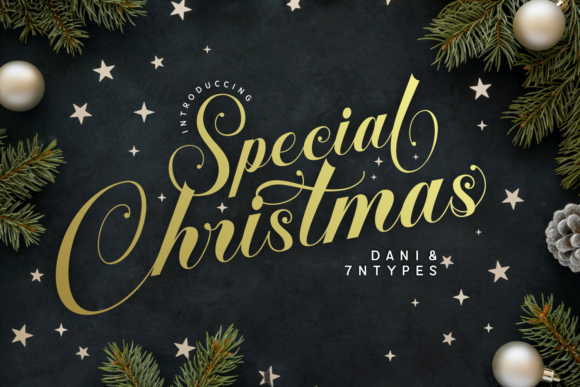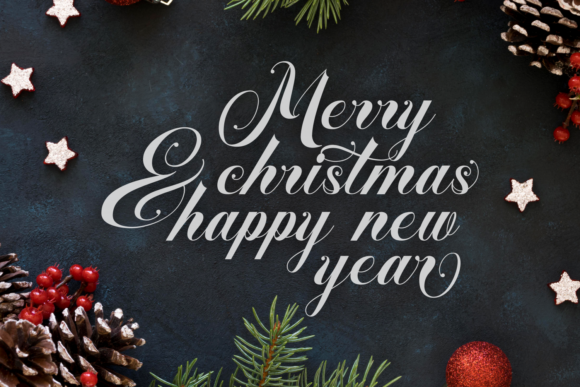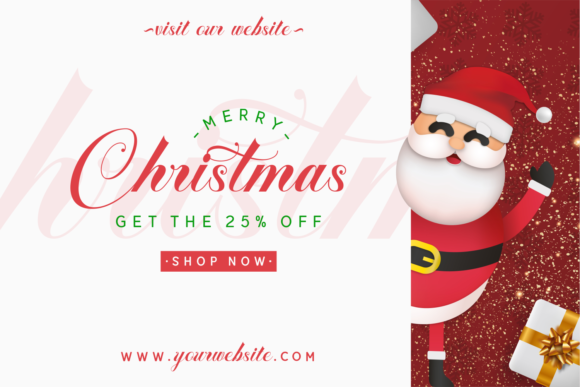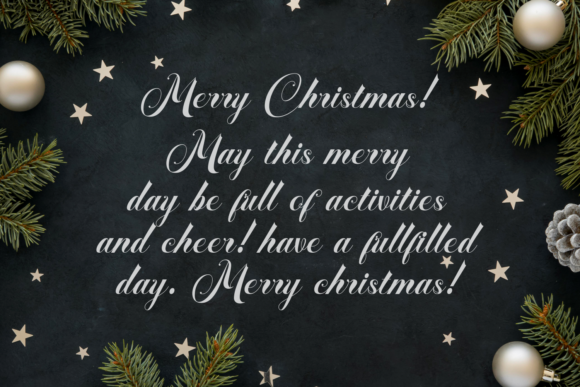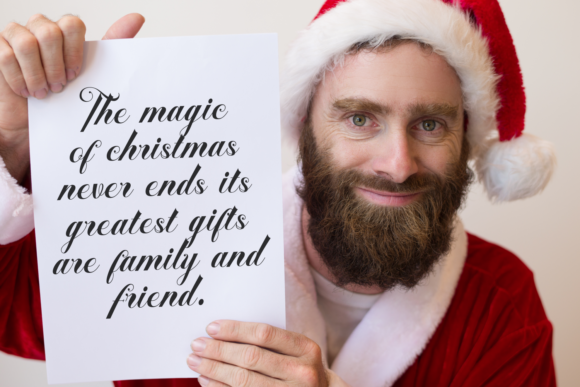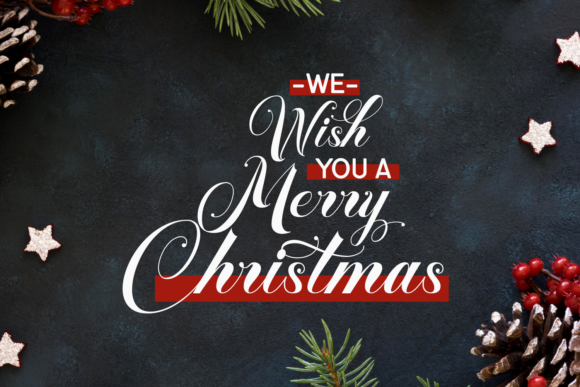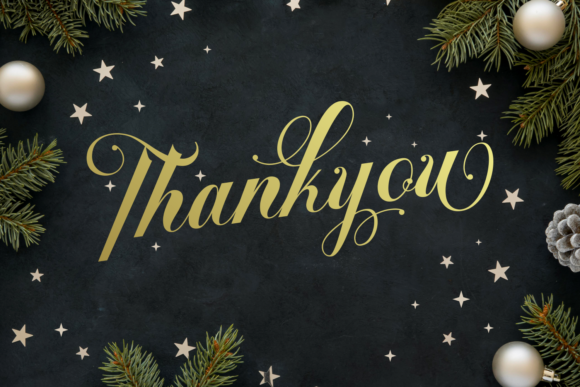
Special Christmas Font
About Special Christmas Font
Special Christmas is a classic yet fresh, rich, and elegant handwritten font. It is ideal for holiday-themed greeting cards and for any crafting project that requires a romantic touch. This font is PUA encoded which means you can access all of the glyphs and swashes with ease!